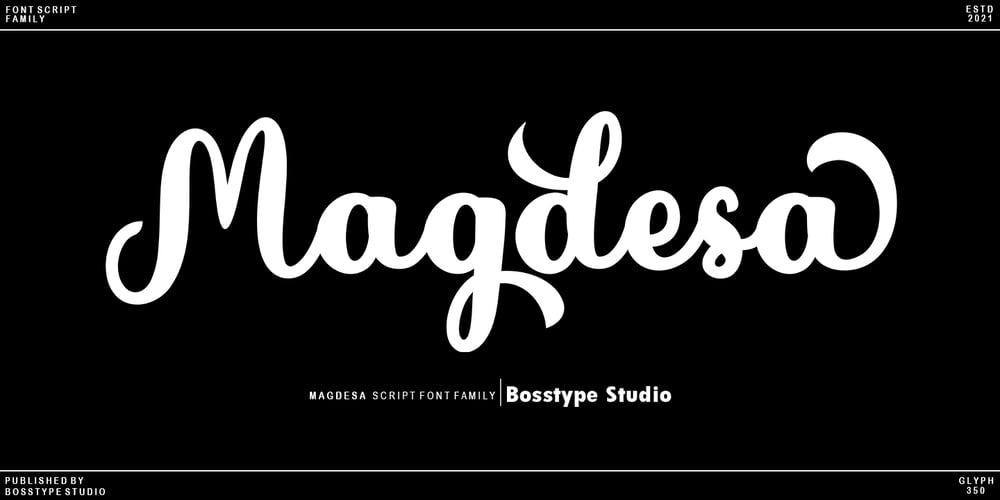
Magdesa Font Family was designed by Mu Fazzal and published by Bosstypestudio. Magdesa contains 4 styles and family package options. Magdesa is a script type family of four fonts. It is inspired by Elegant Fonts and has a soft and friendly look. Magdesa can be used for branding, packaging and anywhere else you need a script font that is readable and smooth. Magdesa has many ties, strokes and alternate characters that will make your designs unique and beautiful.You can also purchase Magdesa as a Family Font and adjust the weight of Magdesa smoothly between Slant and Bold weights. Note that you need design software that supports Family Fonts.